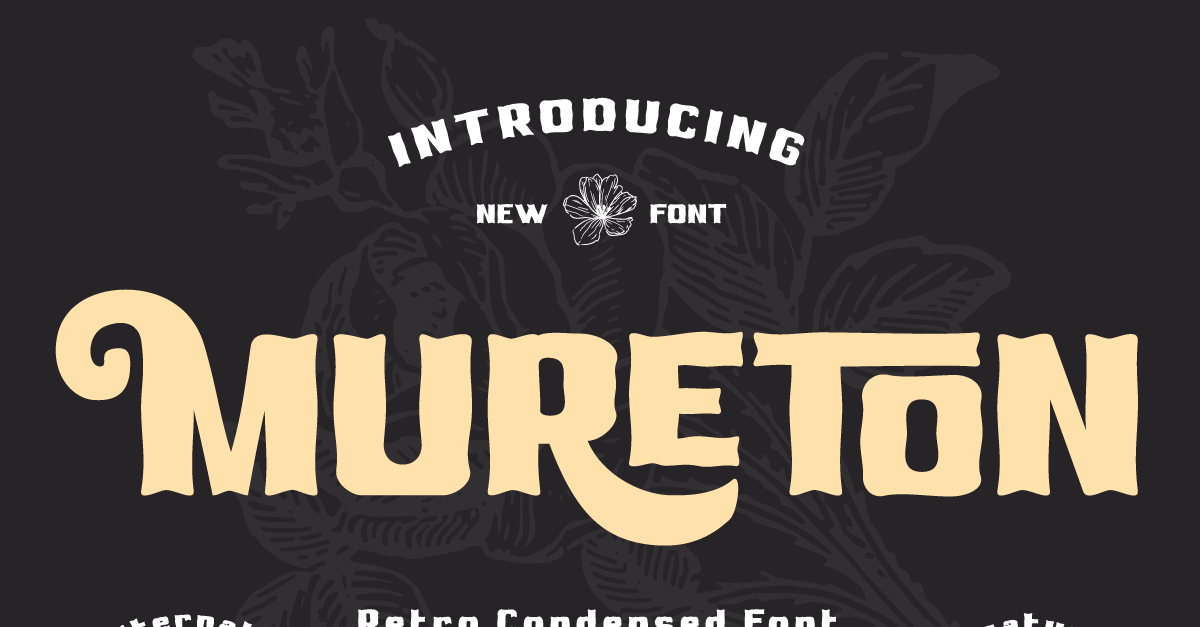
Mureton - Retro Condensed Display Font
Introducing Mureton Font, a captivating and versatile typeface that will instantly captivate your audience. With its unique and stylish design, Mureton Font is the perfect choice for those seeking a distinctive and attention-grabbing typography solution.
Mureton Font features bold letterforms with a touch of elegance and sophistication. Its strong lines and contemporary shapes make it suitable for a wide range of design applications, including branding, headlines, posters, and more. Whether you're designing a striking advertisement or a modern website header, Mureton Font will leave a lasting impression on your potential customers.
With its versatility and visual appeal, Mureton Font allows you to express your creativity and make a bold statement in your designs. It's the ideal choice for individuals and businesses looking to add a touch of uniqueness and modernity to their projects.